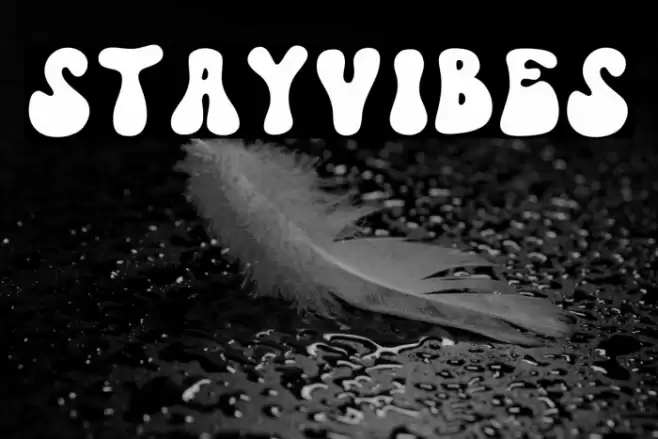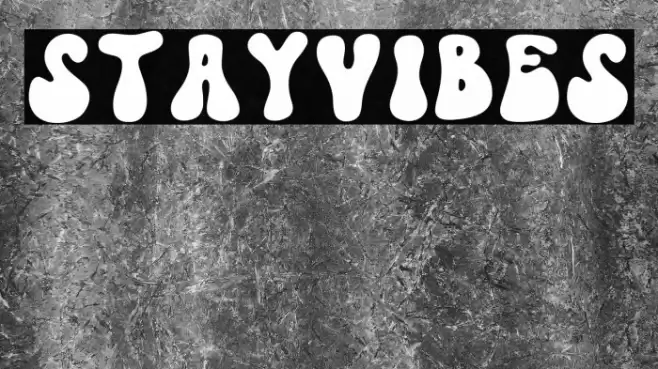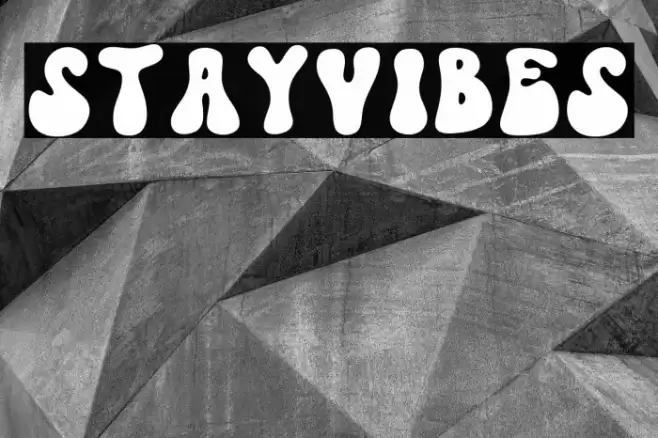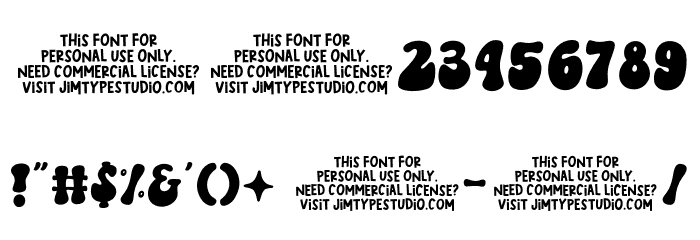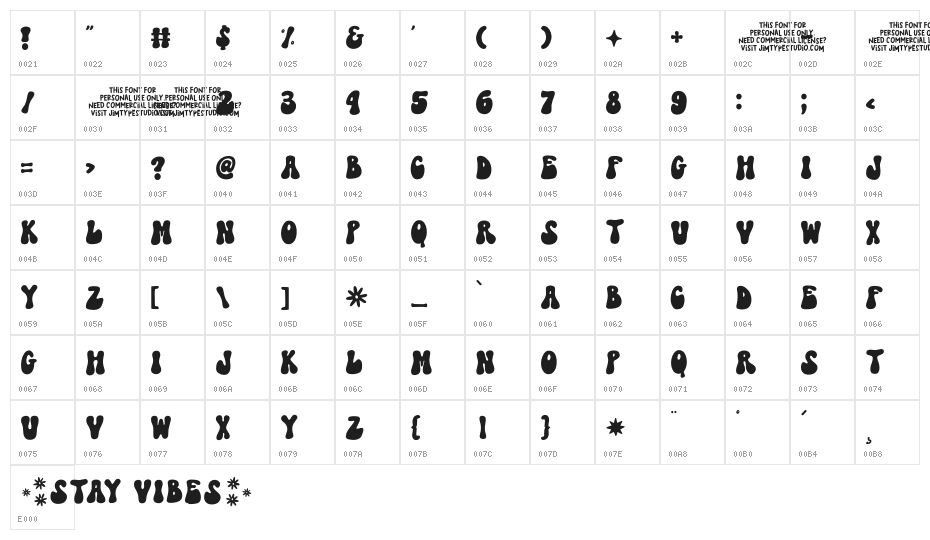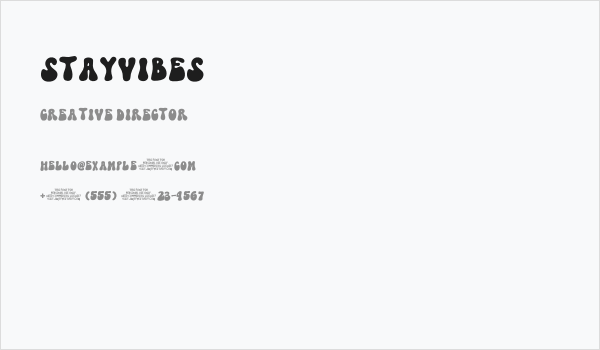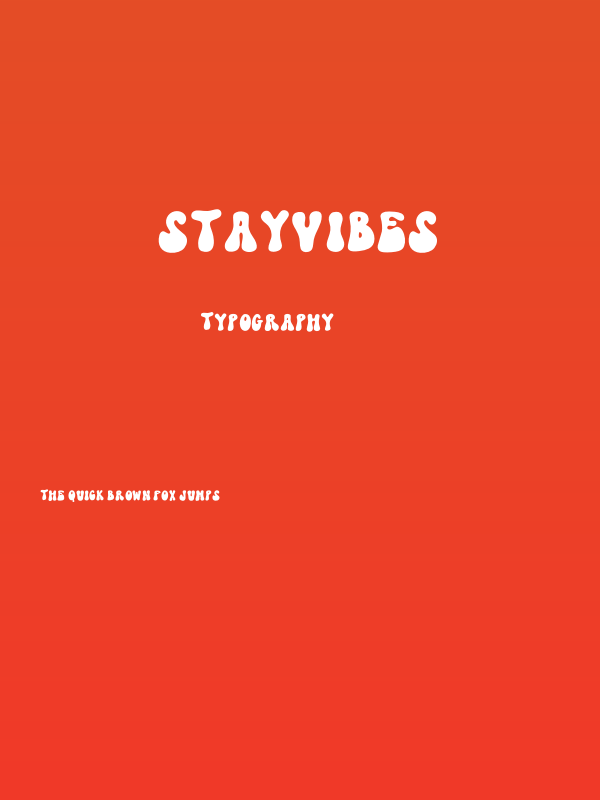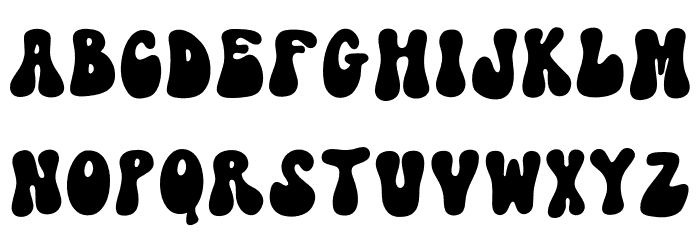
StayVibes Font
StayVibes Description
This playful and bold font features a unique, bubbly design with exaggerated curves and rounded edges. The characters are thick and heavy, creating a strong visual impact. The style is reminiscent of retro and psychedelic themes, with a whimsical and fun appearance. The uppercase and lowercase letters maintain a consistent style, while the numbers and special characters complement the overall design. This font is ideal for projects that require a lively and eye-catching typeface.
A bold, playful font with a bubbly, retro design from Uncategorized fonts.
- Proposed Projects: Perfect for posters, album covers, children's books, and branding that requires a fun and energetic vibe.
- Overall Style: Retro, Playful